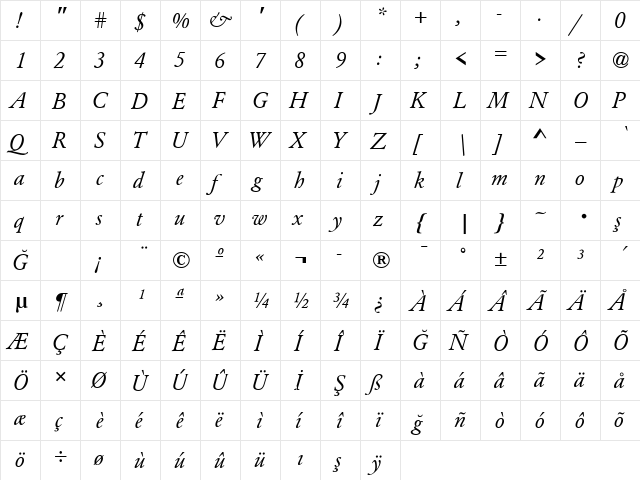
Garamond Normal-Italic
Design Context for Garamond Typeface
Garamond is a composed and adaptable typeface that performs quietly and consistently across a wide range of design contexts. Its italic angle brings a sense of urgency and motion to the letterforms.
Pro Tip: Use Garamond for emphasis, pull quotes, and subheadings where its slanted energy can add rhythm to the layout.